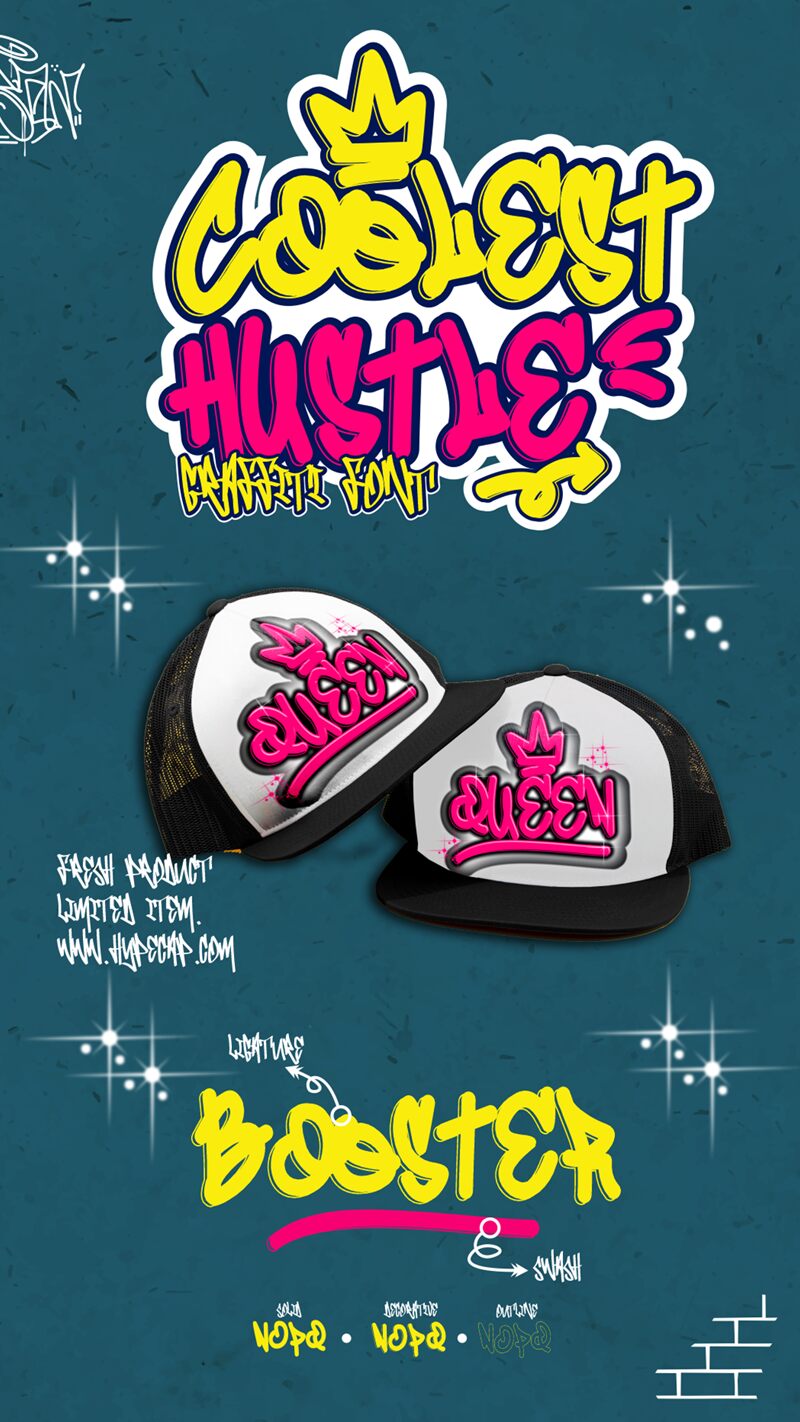
Coolest Hustle font family by Cikareotype Studio consists of 6 energetic font styles inspired by graffiti. The cool lettering of this free font family finds a balance between contemporary art and graffiti. Polished edges and exceptional intuitive letterflow let the font appear sophisticated and attractive. The font family is designed for aspiring artists and designers who enjoy the vibrant and rich history of street art and want to incorporate it into their designs.